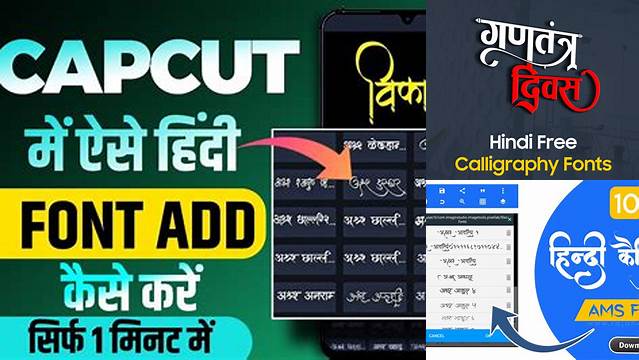
6. Using Devanagari Fonts in CapCut for Hindi Typography
Understanding using Devanagari fonts in CapCut for Hindi typography is key to creating authentic and visually appealing content. Devanagari is the script used for Hindi, and it has its own unique character shapes and ligatures. When choosing Devanagari fonts for your CapCut videos, it's important to select fonts that are not only aesthetically pleasing but also accurately represent the nuances of the script. Look for fonts that have a clear and legible design, especially if your text will be displayed on smaller screens. Pay attention to the spacing between characters and words, as proper spacing is crucial for readability in Devanagari. Consider the weight and style of the font in relation to the overall tone and theme of your video. A bold font might be suitable for titles and headings, while a lighter font could be better for body text or subtitles. Experiment with different fonts to see how they interact with your video's visuals. CapCut's text editing tools allow you to customize the size, color, and positioning of your Devanagari text, giving you full control over the typography in your videos. By mastering the use of Devanagari fonts in CapCut, you can elevate your Hindi video content and create a more engaging experience for your viewers.
7. CapCut Hindi Font Styles: Bold, Italic, and More
Exploring CapCut Hindi font styles: bold, italic, and more can significantly enhance the visual appeal of your videos. Just like with any language, using different font styles in Hindi can help you emphasize certain words, create visual hierarchy, and convey different moods. CapCut offers a variety of font styles that you can apply to your Hindi text, including bold, italic, underline, and more. Using bold text is a great way to make key words or phrases stand out, drawing the viewer's attention to important information. Italic text can add a touch of elegance or sophistication, and it's often used for emphasis or for quoting someone. Underlining can also be used for emphasis, but it's generally less common in modern typography. In addition to these basic styles, CapCut also allows you to customize the color, size, and spacing of your Hindi text, giving you even more control over its appearance. You can also add shadows, outlines, or glow effects to make your text pop even further. When choosing font styles for your Hindi text, it's important to consider the overall design of your video and the message you're trying to convey. Experiment with different styles to see what works best for your project. By mastering the use of font styles in CapCut, you can create visually stunning Hindi videos that capture your audience's attention.
8. Using Hindi Calligraphy Fonts in CapCut
The beauty of Hindi calligraphy can truly shine when you're using Hindi calligraphy fonts in CapCut. These fonts bring an artistic and traditional flair to your videos, perfect for adding a touch of elegance and cultural richness. Hindi calligraphy, with its flowing lines and intricate letterforms, can transform your text into a visual masterpiece. When selecting calligraphy fonts for CapCut, think about the mood and style you want to create. Some calligraphy fonts are bold and dramatic, while others are delicate and refined. Consider the context of your video – a calligraphy font might be perfect for a wedding invitation, a cultural event promo, or a poetic visual piece. There are many online resources where you can find stunning Hindi calligraphy fonts, both free and premium. Websites like Google Fonts, Font Squirrel, and specialized font foundries offer a wide selection. When you've downloaded your chosen font, install it on your device as we discussed earlier. Then, in CapCut, add your text layer and select the calligraphy font from your font list. Play around with the size, color, and positioning of the text to achieve the perfect look. You can even animate the text to make it flow gracefully onto the screen, adding an extra layer of artistry. By incorporating Hindi calligraphy fonts into your CapCut projects, you can elevate your videos and captivate your audience with the beauty of the written word.
9. Modern Hindi Fonts for CapCut Video Projects
For those seeking a contemporary edge, modern Hindi fonts for CapCut video projects offer a sleek and stylish alternative. These fonts break away from traditional calligraphy, embracing clean lines and minimalist designs that resonate with modern aesthetics. Using modern fonts in your CapCut videos can convey a sense of innovation, sophistication, and forward-thinking creativity. When choosing modern Hindi fonts, look for those that are legible and versatile, suitable for a range of video styles. A good modern font should work well for titles, subtitles, and body text, ensuring a consistent and professional look throughout your project. Websites like Google Fonts and Adobe Fonts are excellent resources for discovering modern Hindi fonts. They offer a variety of options, from geometric sans-serifs to sleek serifs, all designed to bring a contemporary touch to your videos. Once you've found your perfect font, download and install it on your device. Then, in CapCut, add your text layer and select the modern font from your font list. Experiment with different font weights and styles (such as bold or italic) to create visual contrast and hierarchy. Consider using modern color palettes and text animations to complement the font's contemporary feel. With the right modern Hindi font, your CapCut videos will exude a fresh and cutting-edge vibe, capturing the attention of your audience and leaving a lasting impression.
10. Downloading Hindi Fonts for CapCut on Android
If you're an Android user, downloading Hindi fonts for CapCut on Android is a crucial step to creating stunning videos with personalized text. Unlike some desktop platforms, Android requires a slightly different approach to font installation. First, you'll need to find a reliable source for Hindi fonts. Websites like Google Fonts, DaFont, and Font Squirrel offer a wide selection of free and paid Hindi fonts that you can download directly to your Android device. Once you've downloaded the font file (usually in .ttf or .otf format), you'll need a font installer app to make it accessible to CapCut. There are several font installer apps available on the Google Play Store, such as iFont or FontFix. Download and install one of these apps. Open the font installer app and navigate to the folder where you saved the downloaded font file. Select the font, and the app will guide you through the installation process. Some apps may require root access to install fonts system-wide, while others will install the font for specific apps only. Follow the app's instructions carefully. Once the font is installed, it should appear in the font selection menu within CapCut. If you don't see it right away, try restarting CapCut or your device. With your new Hindi fonts installed on your Android device, you'll be able to add personalized and stylish text to your CapCut videos, making them truly stand out.
11. Downloading Hindi Fonts for CapCut on iOS
For iOS users, downloading Hindi fonts for CapCut on iOS involves a unique process due to Apple's system-level font management. Unlike Android, iOS doesn't allow direct installation of fonts system-wide. Instead, you'll need to use a third-party app that can manage and install fonts for use in specific apps like CapCut. A popular choice for this is an app called iFont, which is available on the App Store. Start by downloading iFont onto your iOS device. Next, find your desired Hindi fonts. Websites like Google Fonts and Font Squirrel are great resources for free Hindi fonts. Download the font files (usually in .ttf or .otf format) to your device. You can often do this directly from Safari. Once the font files are downloaded, open iFont and navigate to the "Import" section. Locate the downloaded font files and import them into iFont. iFont will then guide you through the process of installing a configuration profile, which is necessary for the fonts to be recognized by iOS. Follow the on-screen instructions carefully. After the profile is installed, the fonts should be available for use in CapCut. Open CapCut, add a text layer, and check the font list. Your newly installed Hindi fonts should appear there. If you don't see them immediately, try restarting CapCut or your device. By following these steps, you can easily download and use custom Hindi fonts in CapCut on your iOS device, adding a personal touch to your video creations.
12. How to Change Font in CapCut: Hindi Fonts Included
Understanding how to change font in CapCut, including using your newly downloaded Hindi fonts, is a fundamental skill for any video editor. CapCut makes the process straightforward and intuitive. First, open your project in CapCut and select the clip where you want to add or modify text. Tap on the "Text" option in the bottom toolbar. If you already have a text layer, select it. If not, tap on "Add Text" to create a new one. Once the text layer is selected, you'll see the text editing options appear. Look for the "Font" option – it's usually represented by a font name or an icon. Tap on the "Font" option to open the font selection menu. Here, you'll see a list of available fonts, including the default CapCut fonts and any custom fonts you've installed (like your Hindi fonts!). Scroll through the list to find the Hindi font you want to use. CapCut often organizes fonts into categories, so you might need to scroll through different sections. Once you've found your desired font, simply tap on it to apply it to your text. The text in your video preview will update immediately, allowing you to see how the font looks in context. You can further customize the text by adjusting its size, color, style (bold, italic, etc.), and position. By mastering the font changing process in CapCut, you can experiment with different typography styles and create visually appealing videos that effectively convey your message.
13. Adding Hindi Subtitles to Videos in CapCut
Adding Hindi subtitles to videos in CapCut is a fantastic way to make your content accessible to a wider audience and enhance viewer engagement. Subtitles are not only helpful for those who are deaf or hard of hearing but also for viewers who prefer to watch videos with the sound off or who are learning the Hindi language. CapCut offers several tools to streamline the subtitle creation process. One option is to manually add text layers at the bottom of your screen, timing them to coincide with the spoken dialogue. This method gives you full control over the appearance and timing of the subtitles. You can choose your Hindi font, size, color, and style, ensuring that the subtitles are legible and visually appealing. Another option is to use CapCut's auto-captions feature, which can automatically generate subtitles based on the audio in your video. While this feature can save you a significant amount of time, it's important to review and edit the auto-generated subtitles to ensure accuracy, especially with Hindi, where nuances in pronunciation can affect the transcription. Once you've created your subtitles, you can further customize them by adding background colors or shadows to improve readability. You can also adjust the timing and positioning of individual subtitles to ensure they align perfectly with the video and don't obstruct important visuals. By taking the time to add clear and accurate Hindi subtitles to your CapCut videos, you'll be creating a more inclusive and engaging experience for your viewers.
14. Best Hindi Font Pairings for CapCut Projects
Choosing the best Hindi font pairings for CapCut projects can elevate your video's visual appeal and create a professional, polished look. Font pairing involves selecting two or more fonts that complement each other and work well together in a design. The goal is to create a harmonious balance between the fonts, enhancing readability and visual interest. When pairing Hindi fonts, consider the overall tone and style of your video. For example, if you're creating a modern vlog, you might pair a bold sans-serif Hindi font for the titles with a clean and legible serif font for the body text. This combination creates a strong visual hierarchy while maintaining a contemporary feel. If you're working on a more traditional or cultural project, you could pair a calligraphy-style Hindi font with a simpler, more readable font for the body text. This pairing adds a touch of elegance and authenticity to your video. Experiment with different font weights and styles within the same font family. For example, you could use a bold version of a font for headings and a regular or light version for the body text. This creates a subtle but effective contrast. Remember to keep readability in mind when pairing fonts. Choose fonts that are clear and easy to read, especially on smaller screens. Avoid pairing fonts that are too similar, as this can create a monotonous look. By carefully selecting and pairing your Hindi fonts in CapCut, you can enhance the visual impact of your videos and create a professional and engaging viewing experience.
15. CapCut Text Effects with Hindi Fonts: Glow, Shadow, and More
Unlocking CapCut text effects with Hindi fonts, like glow, shadow, and more, can add a professional and eye-catching dimension to your video projects. CapCut offers a range of text effects that can transform your plain Hindi text into visually stunning elements. These effects can help your text stand out from the background, emphasize important messages, and create a unique visual style. One of the most popular text effects is the shadow effect, which adds a subtle depth to your text, making it appear to float slightly above the video. This effect is particularly useful for improving text readability against busy backgrounds. The glow effect, on the other hand, adds a soft, luminous halo around your text, creating a vibrant and energetic look. This effect is ideal for titles and headings that you want to grab attention. CapCut also offers other text effects, such as outlines, backgrounds, and 3D effects, allowing you to further customize the appearance of your Hindi text. Experiment with different combinations of effects to create unique and visually appealing text styles. When using text effects, it's important to strike a balance between visual appeal and readability. Avoid using too many effects or effects that are too distracting, as this can make your text difficult to read. Choose effects that complement your Hindi fonts and enhance the overall message of your video. By mastering CapCut's text effects, you can create visually stunning Hindi text that captivates your audience and elevates your video projects.
16. Animated Hindi Text in CapCut: Making Your Videos Dynamic
Bringing animated Hindi text in CapCut to your videos is a surefire way to make them more dynamic and engaging. Animated text can capture your viewers' attention, emphasize key messages, and add a professional touch to your video projects. CapCut offers a variety of text animation options, ranging from simple fades and slides to more complex and creative effects. These animations can transform your static Hindi text into dynamic visual elements that move and interact with your video. When choosing text animations, consider the overall tone and style of your video. For example, a subtle fade-in or slide-in animation might be perfect for a professional presentation or tutorial, while a more energetic and playful animation could be ideal for a vlog or social media video. CapCut's text animation options allow you to customize the speed, direction, and timing of your animations, giving you full control over the final result. You can also combine different animations to create unique and visually interesting effects. For example, you could have your Hindi text slide in from the side while simultaneously fading in, creating a smooth and dynamic transition. When working with animated text, it's important to ensure that the animations enhance the message of your video and don't distract from it. Avoid using animations that are too fast or too flashy, as this can make your text difficult to read. Choose animations that complement your Hindi fonts and overall video style. By incorporating animated Hindi text into your CapCut videos, you can create a more captivating and engaging viewing experience for your audience.
17. Best Hindi Keyboard for CapCut Text Input
Having the best Hindi keyboard for CapCut text input is essential for creating accurate and stylish Hindi text in your videos. Typing in Hindi on a mobile device can be challenging if you don't have a reliable keyboard that supports Devanagari script effectively. A good Hindi keyboard should be user-friendly, responsive, and offer a variety of input methods, such as phonetic typing (where you type the sounds of the words in English, and the keyboard converts them to Hindi) and direct Devanagari character input. Several excellent Hindi keyboard apps are available for both Android and iOS devices. Google Indic Keyboard is a popular choice, offering support for multiple Indian languages, including Hindi. It features phonetic typing, direct character input, and a clean, intuitive interface. Another great option is Lipikaar Hindi Keyboard, which focuses on phonetic typing and makes it easy to type complex Hindi words with accuracy. For iOS users, the built-in Hindi keyboard is a solid option, offering both phonetic and direct input methods. You can enable it in your device's settings under "Keyboards." When choosing a Hindi keyboard for CapCut, consider your typing style and preferences. If you're comfortable with phonetic typing, a keyboard like Google Indic Keyboard or Lipikaar Hindi Keyboard might be the best choice. If you prefer direct Devanagari character input, the built-in iOS keyboard or other keyboards with this feature might be more suitable. Test out a few different keyboards to see which one feels most natural and efficient for you. With the right Hindi keyboard, you'll be able to type accurate and stylish Hindi text in your CapCut videos with ease.
18. Troubleshooting Hindi Font Issues in CapCut
Sometimes, you might encounter troubleshooting Hindi font issues in CapCut. Don't worry, it happens to the best of us! Let's go over some common problems and how to fix them. One common issue is that the Hindi font you installed isn't showing up in CapCut's font list. First, make sure the font is properly installed on your device. On Android, try restarting your device or clearing CapCut's cache. On iOS, ensure you've installed the font profile correctly using an app like iFont. If the font still isn't showing up, check the font file format. CapCut supports .ttf and .otf fonts, so if your font is in a different format, you'll need to convert it. Another issue you might face is garbled or incorrect characters. This usually happens if CapCut isn't properly recognizing the Devanagari script. Make sure your device's keyboard is set to a Hindi input method when typing. Also, check that the font you're using fully supports the Devanagari character set. Some fonts might have limited character support. If your Hindi text appears blurry or pixelated, try increasing the text size or choosing a font with a sharper design. You can also try exporting your video in a higher resolution. If you're still having trouble, try reinstalling CapCut or contacting CapCut's support team. They might have specific solutions for your device or operating system. By systematically troubleshooting these common issues, you'll be able to resolve most Hindi font problems in CapCut and get back to creating awesome videos.
19. CapCut Tutorials: Using Hindi Fonts Effectively
Looking for CapCut tutorials: using Hindi fonts effectively? You're in luck! There are tons of resources available online to help you master Hindi typography in your CapCut videos. Video tutorials on platforms like YouTube are a fantastic way to learn, as you can see the process step-by-step. Search for keywords like "CapCut Hindi fonts tutorial," "add Hindi text CapCut," or "CapCut Hindi typography" to find relevant videos. These tutorials often cover topics like downloading and installing Hindi fonts, adding Hindi text to your videos, customizing font styles and effects, and troubleshooting common issues. Many tutorials also offer creative tips and tricks for using Hindi fonts effectively, such as font pairing suggestions, animation techniques, and design best practices. In addition to video tutorials, you can also find written guides and articles on blogs and websites dedicated to video editing and graphic design. These resources often provide in-depth explanations of CapCut's text editing features and offer practical advice for creating visually appealing Hindi text. Don't hesitate to experiment and try out different techniques you learn from these tutorials. Practice is key to mastering Hindi typography in CapCut. By watching tutorials, reading guides, and experimenting with different fonts and effects, you'll be able to create professional-looking videos with stunning Hindi text that captivates your audience.
20. Creating Eye-Catching Hindi Titles in CapCut
Creating eye-catching Hindi titles in CapCut is a skill that can truly elevate your videos, drawing viewers in and setting the tone for your content. A well-designed title not only grabs attention but also conveys the essence of your video in a visually appealing way. When crafting Hindi titles in CapCut, start by choosing a font that reflects the style and theme of your video. For bold and impactful titles, consider using a strong sans-serif Hindi font or a calligraphy-style font with thick strokes. For more elegant or refined titles, opt for a lighter-weight font or a classic serif font. Experiment with font sizes and styles to create visual hierarchy. Use a larger font size for the main title and smaller font sizes for subtitles or supporting text. Applying bold or italic styles to certain words or phrases can also help emphasize key information. CapCut's text effects, such as shadows, outlines, and glows, can add depth and dimension to your Hindi titles, making them stand out from the background. However, use these effects sparingly to avoid overwhelming the text. Animation is another powerful tool for creating eye-catching titles. CapCut offers a variety of text animations that can make your titles appear dynamically on the screen. Consider using a subtle fade-in or slide-in animation for a professional look, or a more playful animation for a vlog or social media video. Remember to keep your titles concise and easy to read. Use clear and simple language that accurately reflects the content of your video. By mastering these techniques, you can create Hindi titles in CapCut that are both visually stunning and effective at capturing your audience's attention.
21. Designing Hindi Text Overlays for CapCut Videos
Designing Hindi text overlays for CapCut videos is an art that blends typography with visual storytelling, enhancing your video's message and aesthetic appeal. Text overlays are a versatile tool for adding context, information, or creative flair to your videos. They can be used for subtitles, captions, annotations, or simply to display quotes or lyrics in Hindi. When designing Hindi text overlays, legibility is paramount. Choose fonts that are clear and easy to read, even on smaller screens. Avoid overly decorative fonts that might obscure the text. Consider the color of your text in relation to the background. Use contrasting colors to ensure that the text stands out. A light-colored text on a dark background or vice versa is generally a safe bet. CapCut's text editing tools allow you to add background colors or shadows to your text overlays, further enhancing their visibility. Experiment with different positioning and sizing of your text overlays to find the most visually pleasing arrangement. Avoid placing text over important visual elements in your video. Keep the text concise and to the point. Long blocks of text can be overwhelming for viewers. Break up lengthy messages into shorter, more manageable segments. CapCut's animation features can add a dynamic touch to your text overlays. Use subtle animations like fades or slides to make the text appear and disappear smoothly. When designing Hindi text overlays for your CapCut videos, remember to consider the overall tone and style of your video. The text overlays should complement the visuals and contribute to the overall message you're trying to convey. By following these guidelines, you can create Hindi text overlays that are both informative and visually appealing.
22. CapCut Font Packs for Hindi Video Creators
For Hindi video creators, CapCut font packs can be a game-changer, providing a curated collection of fonts specifically designed for Hindi typography. A font pack is essentially a bundle of fonts that share a common theme or style, making it easier to find the perfect font for your video projects. While CapCut doesn't offer official font packs, you can create your own by downloading and organizing Hindi fonts from various sources. This allows you to build a personalized library of fonts that perfectly suit your creative needs. When creating your own CapCut font pack for Hindi videos, consider including a variety of font styles, such as sans-serif, serif, calligraphy, and modern fonts. This will give you flexibility when designing titles, subtitles, and text overlays. Look for fonts that support the full Devanagari character set, ensuring that you can type all Hindi words accurately. Check the licensing terms of each font before downloading it, especially if you plan to use the fonts for commercial projects. Some fonts are free for personal use but require a license for commercial use. Organize your font pack into categories to make it easier to find the right font for your project. You could create categories based on font style (e.g.,